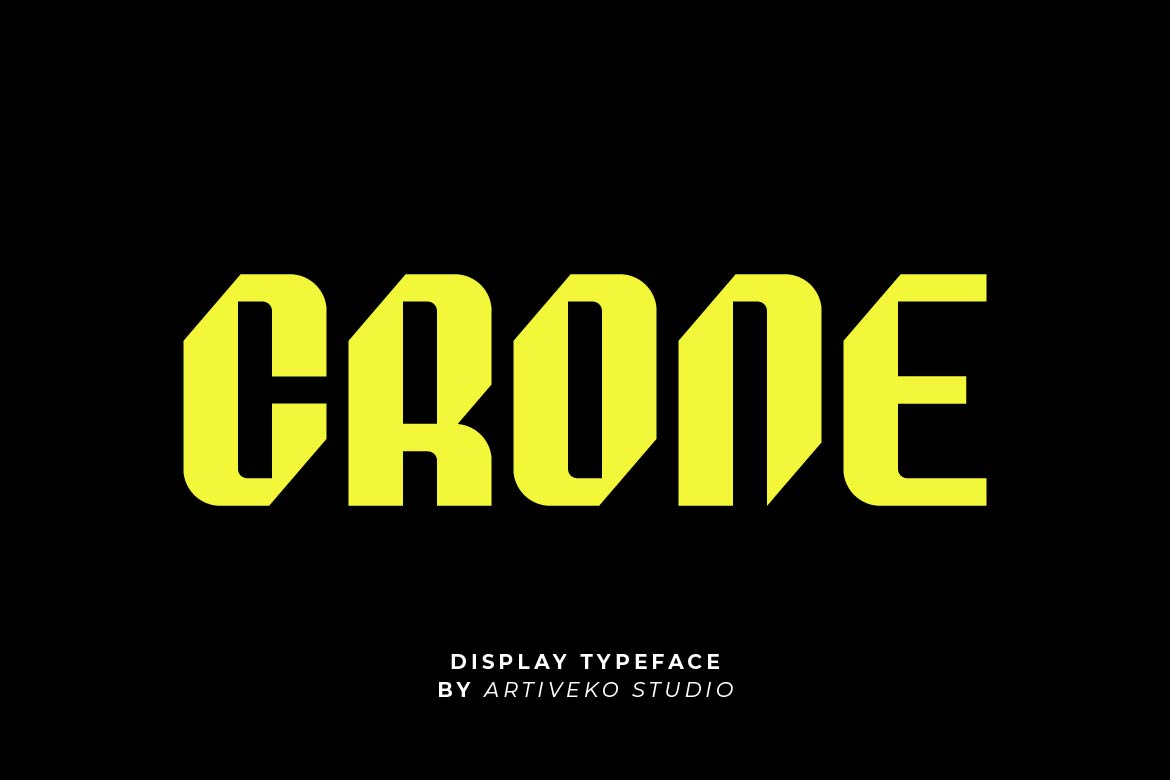
- Crone Sport – Powerful Sports Typeface for Jerseys & Logos
Crone is a bold and energetic display typeface inspired by competitive sports and athletic branding. Built with strong letterforms, solid weight, and dynamic presence, this font is designed to stand out on jerseys, team logos, esports graphics, posters, merchandise, and promotional campaigns.
Its powerful structure gives a sense of speed, strength, and determination—perfect for football clubs, basketball teams, gym branding, racing visuals, fitness brands, and sports events. Crone Sport maintains high readability while delivering aggressive visual impact in large headlines and statement typography.
Crone Sport is not just a font — it’s built for champions and bold competition.